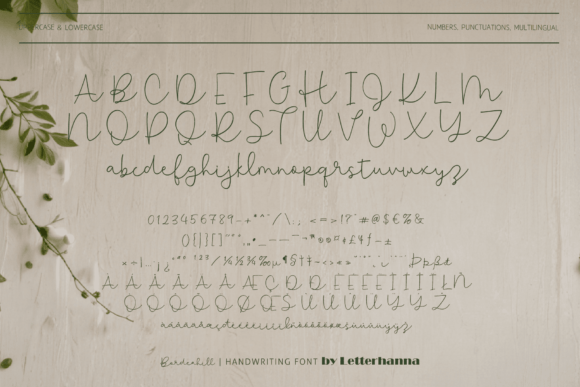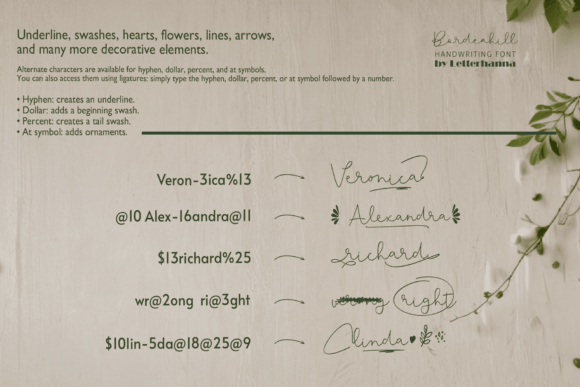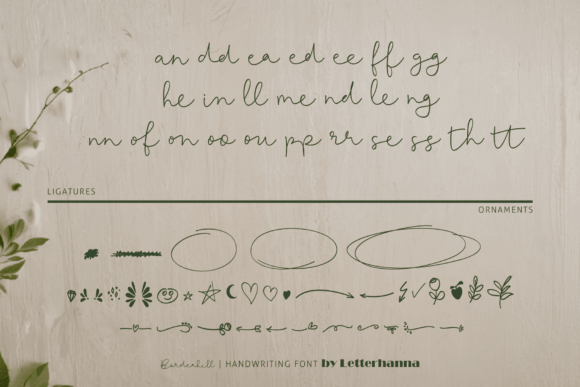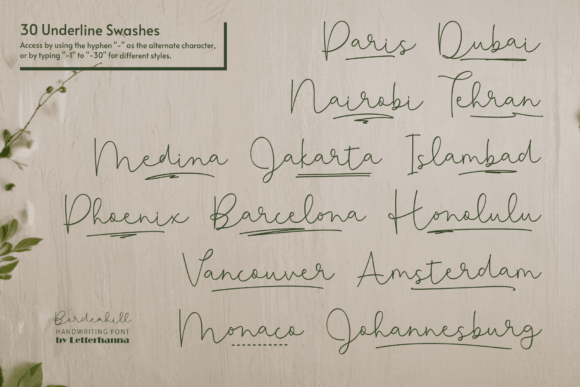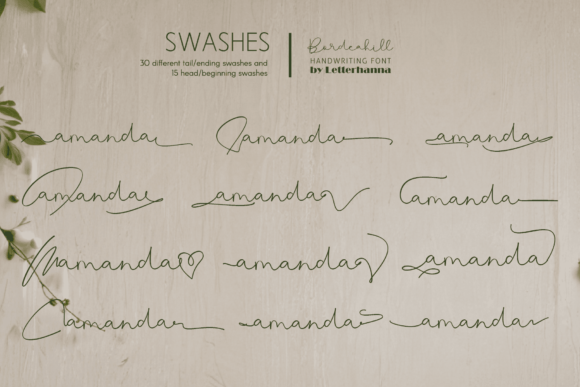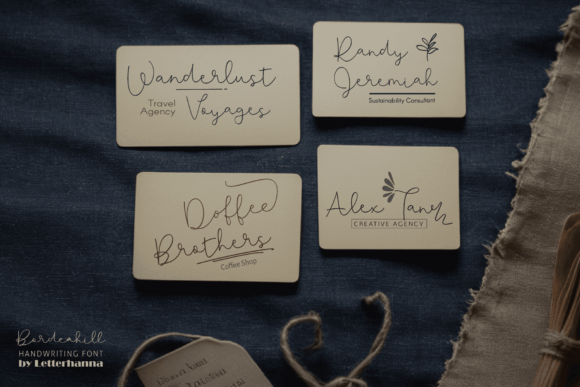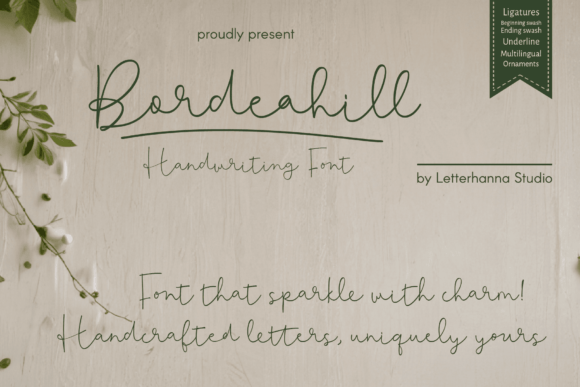
Introducing Bordeahill: The Elegant Handwriting Script Font for Creative Projects
Are you looking for a font that can add a touch of elegance and personality to your creative projects? Look no further than Bordeahill, a charming new handwriting script font designed to elevate your designs with sophistication and warmth. With its smooth, flowing strokes and playful flair, Bordeahill is the perfect choice for crafters, designers, and anyone looking to make their words stand out in style.
The Perfect Balance of Sophistication and Warmth
Bordeahill captures the perfect balance between sophistication and warmth, making it an ideal font for a wide range of creative projects. Whether you’re crafting invitations, logos, or social media posts, this font is sure to bring a touch of elegance and personality to your designs. Its smooth, flowing strokes and playful flair make it a versatile font that can be used for both formal and informal projects.
Versatile Features for Endless Possibilities
One of the standout features of Bordeahill is its versatility. This font offers a range of stylish swashes and alternate characters, giving you endless possibilities to customize your designs. Whether you’re looking to add a touch of whimsy or a dash of sophistication, Bordeahill has got you covered. With its extensive range of features, you can use this font to create unique and eye-catching designs that reflect your personal style.
A Timeless Appeal with a Modern Touch
Bordeahill has a timeless appeal that makes it perfect for a wide range of creative projects. Its classic handwriting style is reminiscent of traditional script fonts, while its modern touch gives it a fresh and contemporary feel. This font is perfect for designers and crafters who want to add a personal, artistic feel to their work without sacrificing style or sophistication.
Make Your Creations Unforgettable with Bordeahill
With Bordeahill, you can make your creations unforgettable. This font is designed to bring your ideas to life, and with its range of features and versatility, you can use it to create unique and eye-catching designs that stand out from the crowd. Whether you’re a professional designer or a crafter, Bordeahill is the perfect choice for anyone looking to add a touch of elegance and personality to their work.
Bordeahill is perfect for designers and crafters who want to add a personal, artistic feel to their work. This font is ideal for a wide range of creative projects, including:
- Blog posts and articles
- Digital and print media
Why Choose Bordeahill?
So why choose Bordeahill for your creative projects? Here are just a few reasons why this font stands out:
- Elegant and sophisticated design
- Versatile features, including swashes and alternate characters
- Timeless appeal with a modern touch
- Perfect for a wide range of creative projects
Get Ready to Elevate Your Designs with Bordeahill
If you’re looking for a font that can add a touch of elegance and personality to your creative projects, look no further than Bordeahill. With its smooth, flowing strokes and playful flair, this font is sure to bring a touch of sophistication and warmth to your designs. Whether you’re a professional designer or a crafter, Bordeahill is the perfect choice for anyone looking to make their creations unforgettable.
So why wait? Get ready to elevate your designs with Bordeahill, the elegant handwriting script font that’s sure to bring your ideas to life!